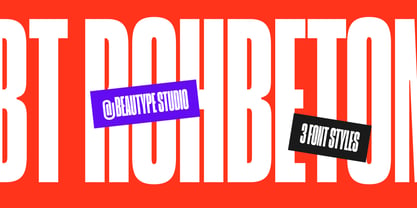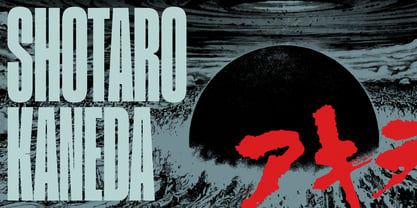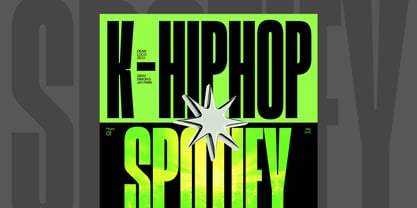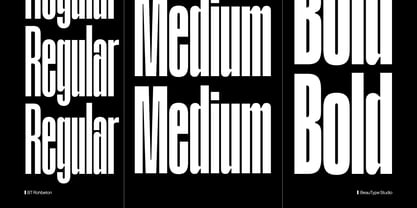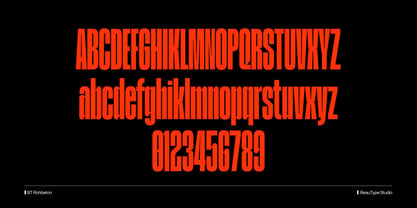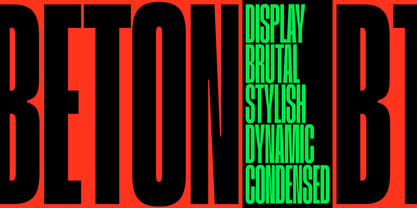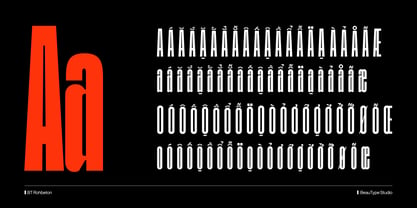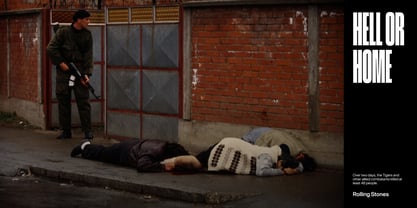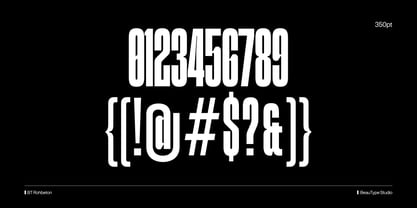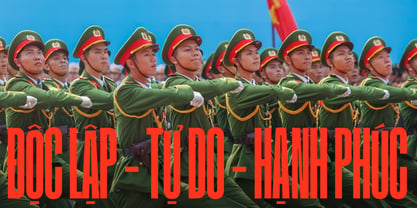
BT Rohbeton
by BeauType
The BT Rohbeton Font Family was designed by Quang Ngo and published by BeauType. BT Rohbeton contains 3 styles and family package options. More about this family
BT Rohbeton is a super condensed sans serif typeface designed for bold, high-impact visuals that represents an immediate sense of brutalism. With its narrow proportions and stark geometric lines, it commands attention in minimal space, making it ideal for strong title presentations and blockbuster film branding. Its clean, modern aesthetic exudes intensity and urgency, perfect for headlines that need to cut through the noise with authority and style.